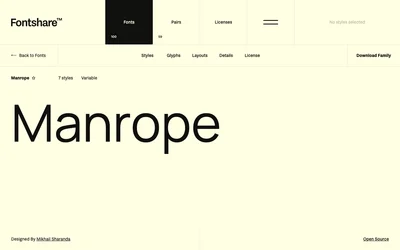
Acumin vs Manrope
Manrope is a popular open-source alternative to Acumin's neo-grotesque design. At 70% similarity, Manrope delivers a modern, clean aesthetic. Compare which works better for ui and editorial projects.
| Feature | Acumin | Manrope |
| Variable Font | No | Yes |
| Weights | Multiple | Variable (100-900) |
| Italics | Yes | No |
| Language Support | latin, latin-extended | latin, latin-extended, cyrillic |
- Shares Acumin's modern character
- Variable font with continuous weight adjustment
- Delivers a modern, clean, professional aesthetic
- Popular in enterprise-corporate design
- Versatile enough to replace 6+ premium fonts
- Designed specifically for ui and editorial